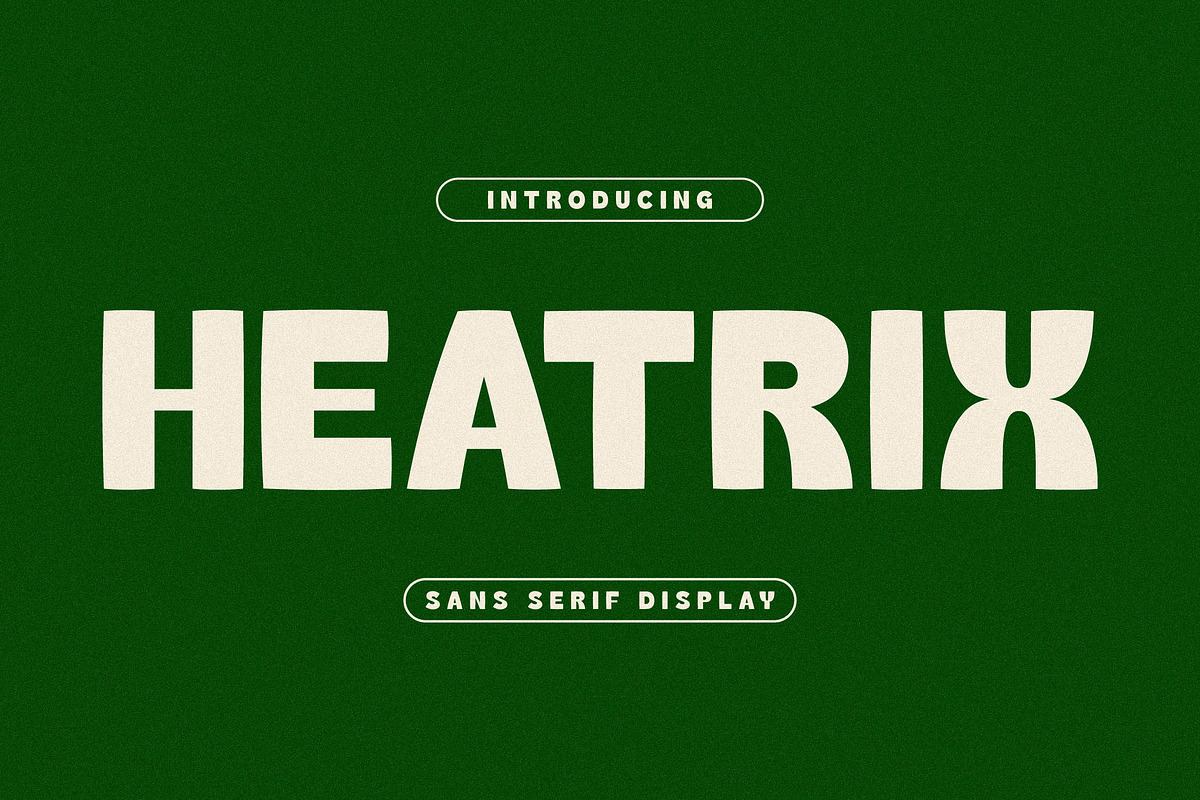
Heatrix Sans Serif Display Font Free Download is a bold and futuristic typeface designed to make an instant visual impact. With its sharp edges, clean geometry, and modern flair, Heatrix is perfect for headlines, branding, tech-inspired designs, posters, and digital interfaces that demand attention.
Crafted for versatility and performance, Heatrix stands out in both print and screen applications. It features uppercase letters, punctuation, multilingual support, and is fully compatible with both Mac and Windows platforms. Whether you're designing for esports, innovation, or fashion-forward branding, Heatrix delivers bold confidence.